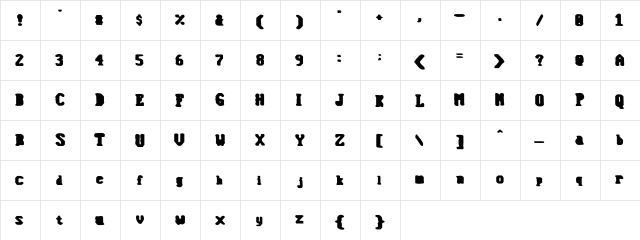
Monofill Regular
| Foundry | Bionic Type |
| Designer | Swat Kat |
Design Context for Monofill Typeface
Monofill uses fixed-width spacing throughout, giving it the structured, systematic character associated with coding environments and technical documentation.